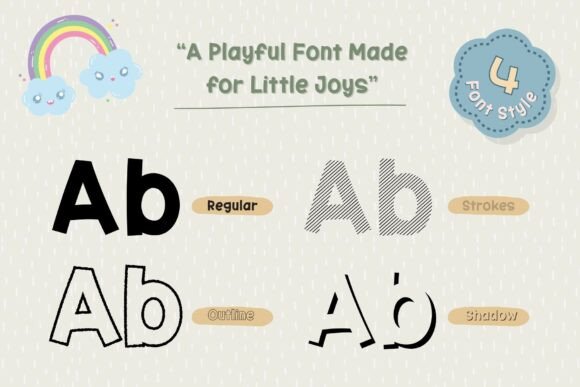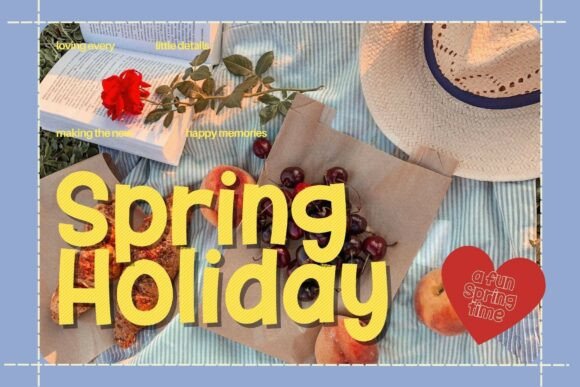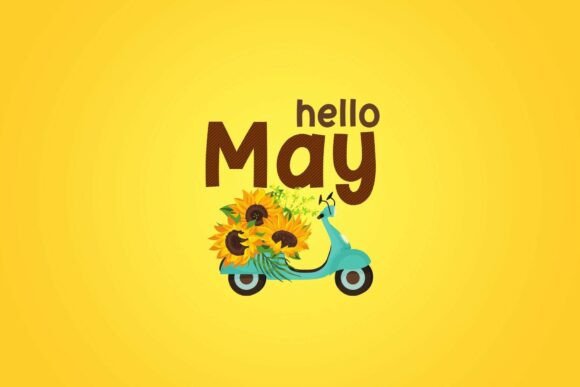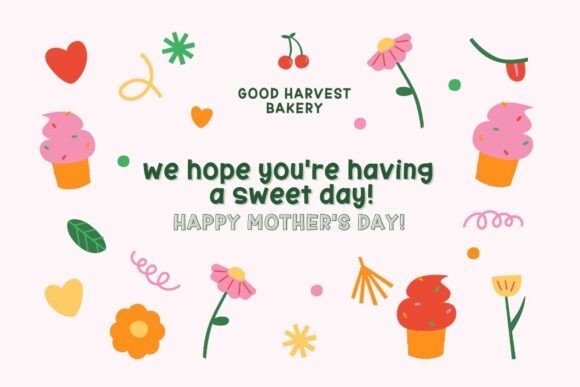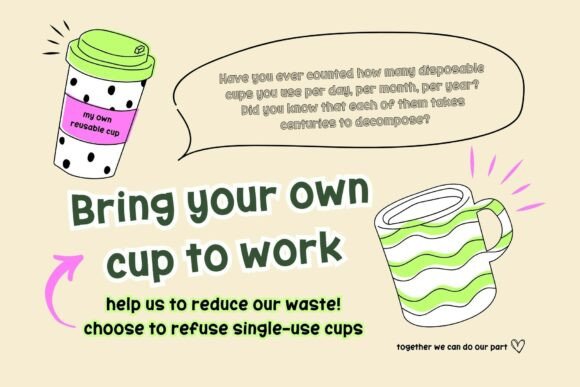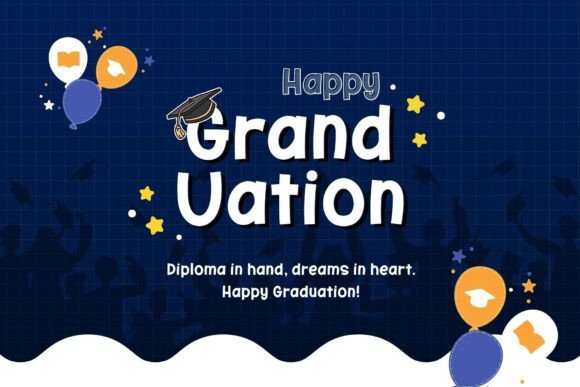
Introduction to Fox Birdie Font
๐Ÿฆ Fox Birdie โ€“ Playful Display Font Family Fox Birdie is a cheerful and playful display font designed to bring little joys into your creative projects.
With its soft shapes, hand-drawn feel, and colorful personality, Fox Birdie is perfect for designs that need warmth, fun, and a friendly touch This Fox Birdie typeface is a top-tier choice for stationery, educational materials, and creative branding that needs to feel approachable and โ€œhand-made.
Key Features of Fox Birdie Font
Why Choose Fox Birdie Font?
Fox Birdie Font offers exceptional quality and versatility, making it a valuable addition to your design toolkit. Whether you’re creating for personal projects or commercial use, Fox Birdie Font delivers professional results.